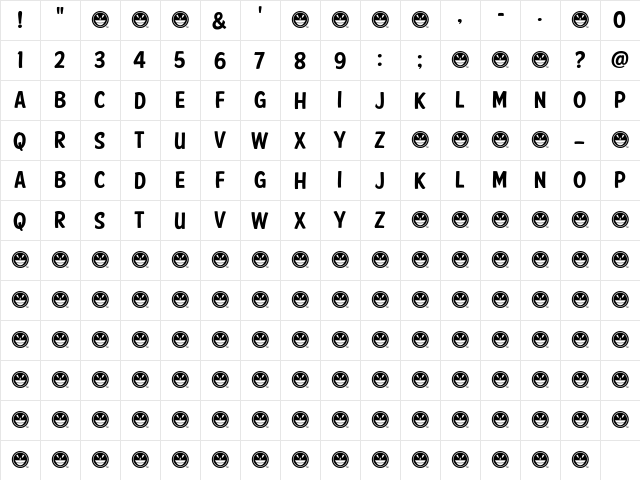
American Purpose Casual 01 Regular
Design Context for American Purpose Casual 01 Typeface
American Purpose Casual 01 takes a measured approach to typography — its balanced proportions and neutral character make it a reliable workhorse for both digital and print work.